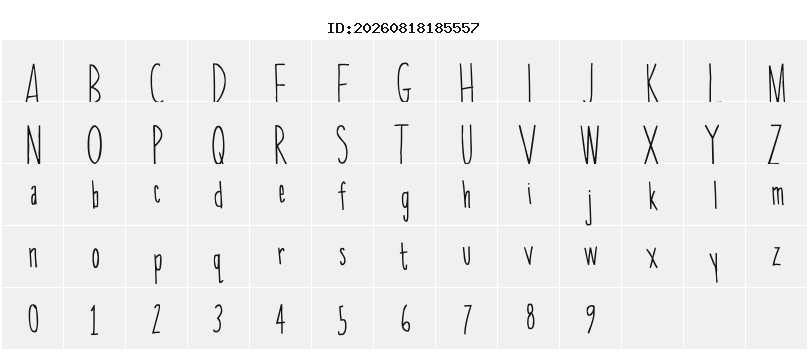
SkinnyChick Preview
• Font Name: SkinnyChick
• Full Font Name: SkinnyChick
• Version: Version 1.00 February 14, 2013, initial release
• PostScript Name: SkinnyChick
About SkinnyChick.ttf
SkinnyChick.ttf is a modern, elegant sans-serif font designed for ultimate readability and visual harmony. Perfect for branding, headlines, web design, and print materials.